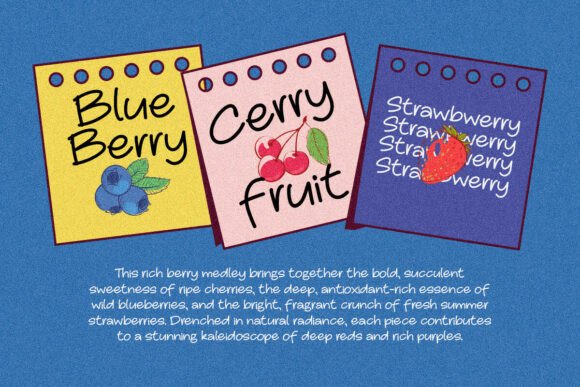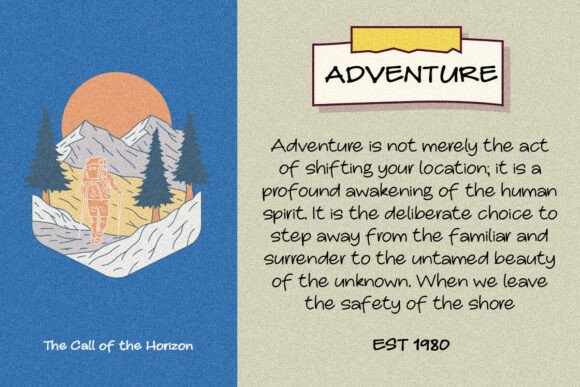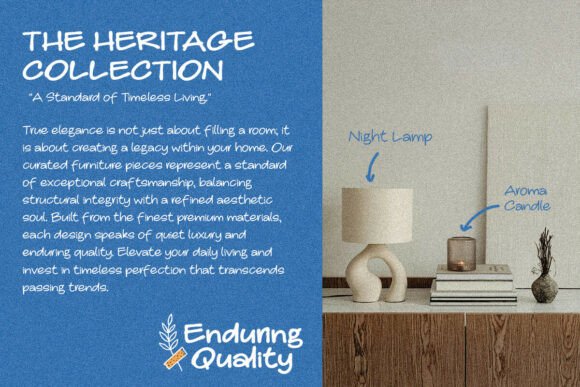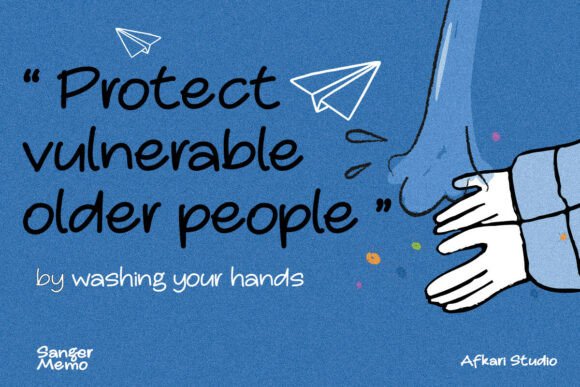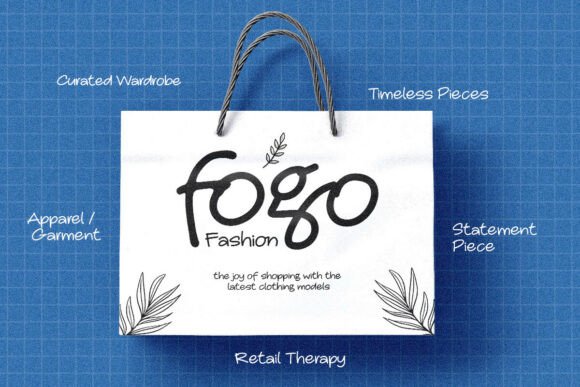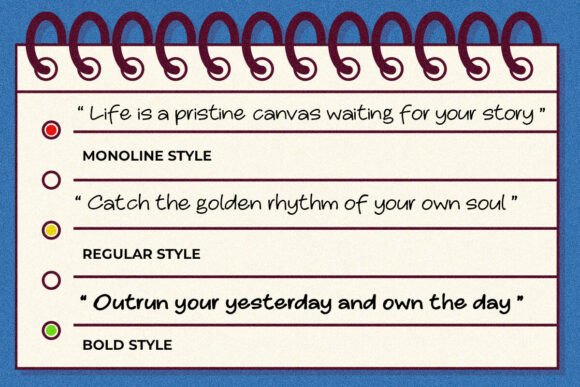
Introduction to Sanger Memo Font
Who hasn’t scribbled down a quick note on a sticky note or a coffee shop napkin, using a marker to jot down ideas or reminders? That instant, spontaneous moment of creativity is exactly what the Sanger Memo Font embodies. With its authentic, handwritten feel, this font brings a touch of personality and warmth to any design project. Whether you’re brainstorming ideas for a creative project or simply need a quick way to add some visual interest to a layout, Sanger Memo Font is the perfect design resource to get your creative juices flowing.
Available in Monoline, Regular, and Bold styles, Sanger Memo Font offers the flexibility to create a wide range of designs, from clean and minimalist to bold and attention-grabbing. Its high-quality, smooth marker strokes and organic texture make it a valuable addition to any designer’s toolkit, perfect for projects that require a personal and informal vibe. And the best part? It’s available for free download, making it an accessible design resource for designers of all levels.
Key Features of Sanger Memo Font
- High-quality design resource suitable for creative projects, with a unique, modern aesthetic.
- Includes a range of glyphs and characters, making it suitable for a variety of design applications.
- Designed with a focus on legibility and clarity, ensuring that your text remains easy to read.
Honest Review: Sanger Memo Font
I recently stumbled upon the Sanger Memo Font, a free download that caught my eye for its unique style and high quality. I was excited to give it a try for my latest creative project.
Here are the things that I found worked well:
- ✨ Unique and interesting design aesthetic that adds a touch of personality to any project
- ✨ High quality font that is clear and easy to read, even at smaller sizes
- ✨ Transparent background, making it easy to layer over other design elements
- ✨ Perfect for designers looking for a design resource that is both stylish and professional
- ⚠️ Limited character set, which may not be suitable for longer pieces of text
- ⚠️ May not be suitable for all design projects, particularly those that require a more formal tone
Overall, I would say that the Sanger Memo Font is a solid addition to any designer’s toolkit. While it may not be suitable for every project, it is a great resource for those looking to add a touch of personality and creativity to their work. With its high quality and unique design aesthetic, I would definitely recommend giving it a try.
Tips for Getting the Most Out of Sanger Memo Font
Use Sanger Memo Font in combination with a transparent background to create a clean and modern design. You can also experiment with different font sizes and styles to add visual interest to your design.
Sanger Memo Font is ideal for use in creative projects such as logos, brochures, flyers, and posters. It’s also great for use in presentations, reports, and documents where a high-quality font is required.